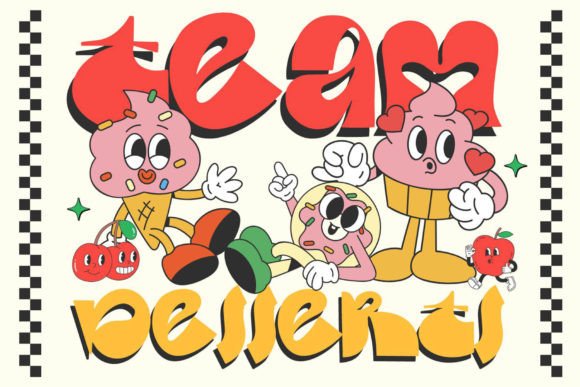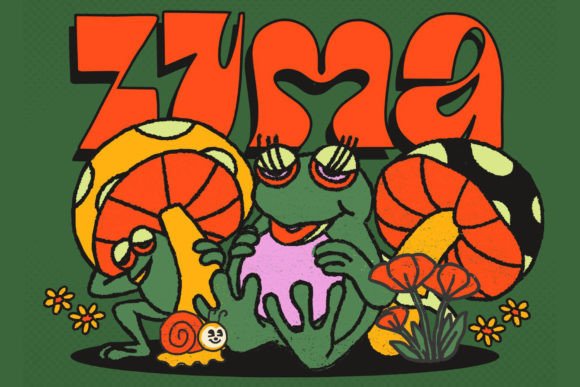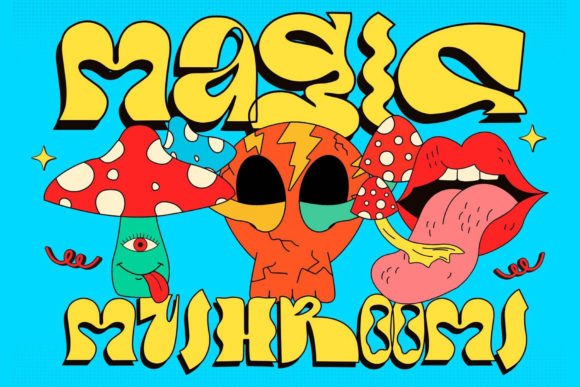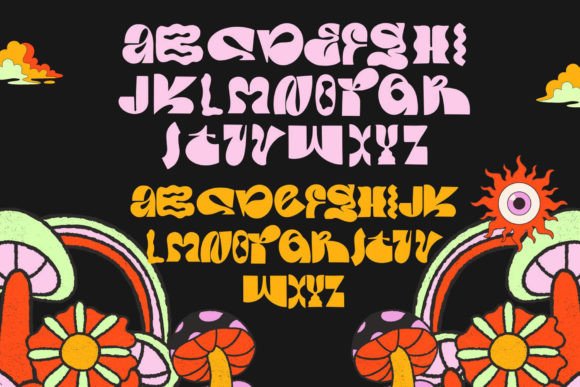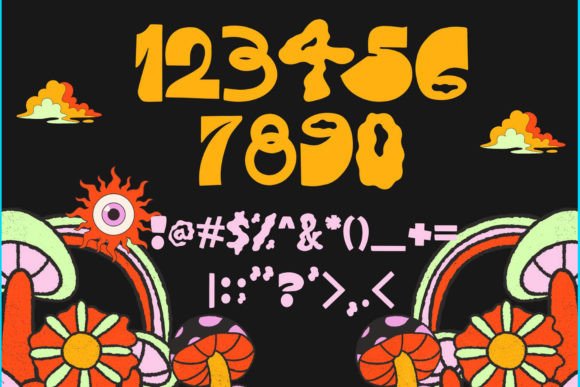
Dance Font: Adding a Playful Touch to Your Designs
Are you looking for a font that can bring a playful and friendly vibe to your designs? Look no further than the Dance font. This cute and friendly display font is perfect for adding a touch of warmth and approachability to your creative projects. With its rounded letterforms and welcoming demeanor, Dance font is ideal for designers and crafters who want to create modern and charming designs.
What is Dance Font?
Dance font is a display font that is designed to bring a playful touch to your designs. Its rounded letterforms and friendly appearance make it perfect for projects that require a modern and approachable aesthetic. Whether you’re working on a logo, brochure, or social media graphic, Dance font is sure to add a delightful and charming quality to your designs.
Key Features of Dance Font
- Rounded Letterforms: Dance font features rounded letterforms that give it a friendly and approachable appearance.
- Welcoming Demeanor: The font’s welcoming demeanor makes it perfect for projects that require a warm and inviting aesthetic.
- Modern Aesthetic: Dance font has a modern and sleek appearance that makes it ideal for designers and crafters who want to create contemporary designs.
- Playful Touch: The font’s playful touch makes it perfect for projects that require a fun and creative vibe.
Why Use Dance Font?
There are many reasons why you should consider using Dance font in your designs. Here are a few:
- Unique and Creative: Dance font is a unique and creative font that can help your designs stand out from the crowd.
- Easy to Read: The font’s rounded letterforms and clear appearance make it easy to read, even at small sizes.
- Versatile: Dance font is a versatile font that can be used in a variety of design projects, from logos and brochures to social media graphics and more.
- Time-Saving: With Dance font, you can save time and effort in your design process. The font’s playful and friendly appearance means you don’t have to spend hours searching for the perfect font or tweaking your design to get the right look.
How to Use Dance Font?
Using Dance font in your designs is easy. Here are a few tips to get you started:
- Pair it with Other Fonts: Dance font pairs well with other fonts, such as sans-serif fonts like Arial or Helvetica. Try pairing it with a bold font for a striking contrast.
- Use it for Headings: Dance font is perfect for headings and titles. Use it to add a playful touch to your designs and draw attention to important information.
- Experiment with Colors: Dance font looks great in a variety of colors. Experiment with different colors and combinations to find the perfect look for your design.
Who Can Use Dance Font?
Dance font is perfect for a variety of designers and crafters, including:
- Graphic Designers: Graphic designers can use Dance font in a variety of design projects, from logos and brochures to social media graphics and more.
- Crafters: Crafters can use Dance font to add a playful touch to their craft projects, such as handmade cards, scrapbooking, and more.
- Small Business Owners: Small business owners can use Dance font to create modern and charming marketing materials, such as flyers, posters, and social media graphics.
In conclusion, Dance font is a cute and friendly display font that brings a playful touch to your designs. With its rounded letterforms and welcoming demeanor, it’s perfect for projects that require a modern and approachable aesthetic. Whether you’re a graphic designer, crafter, or small business owner, Dance font is a great choice for adding a delightful and charming quality to your creative expressions.